Google Fonts are great because they’re, well, free. But if you’ve ever tried to search all 1,900+ of them to find the perfect one, you know it can feel like finding a needle in a haystack.
I’ve rounded up 9 of my current favorite elegant Google Fonts that are perfect for elevating any creative project. In this post, you’ll find three script fonts that make beautiful, elevated accents, three serif fonts that work incredibly well for headers and subheadings, and three sans-serif fonts that are both fresh and refined.
Whether you’re looking for website inspiration, building a brand, or just hunting for something new, this list has something for you.
Elegant Google Fonts | Script Fonts
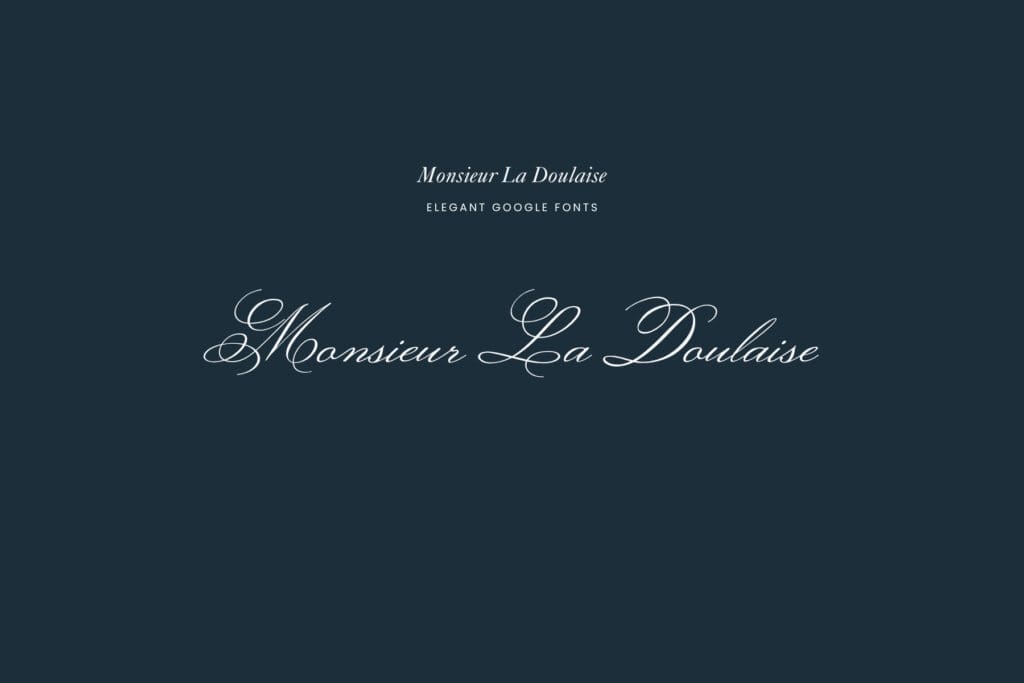
Monsieur La Doulaise: One of the most elegant Google Fonts for wedding and luxury brands, Monsieur La Doulaise is a delicate calligraphic script that mimics the look of fine pen lettering. It’s airy, refined, and perfect for logos, monograms, or anywhere you want a touch of old-world romance.
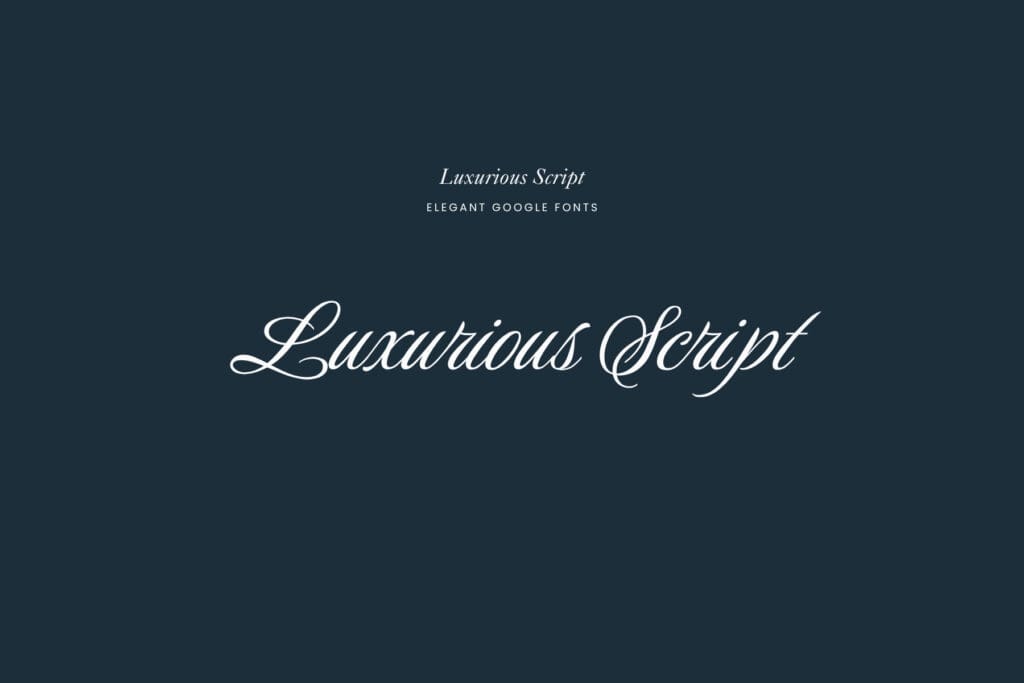
Luxurious Script: True to its name, Luxurious Script is an elegant Google Font with sweeping, connected letterforms that feel both formal and fluid. It’s a go-to for upscale brands, wedding invitations, and editorial headers where sophistication is the whole vibe.
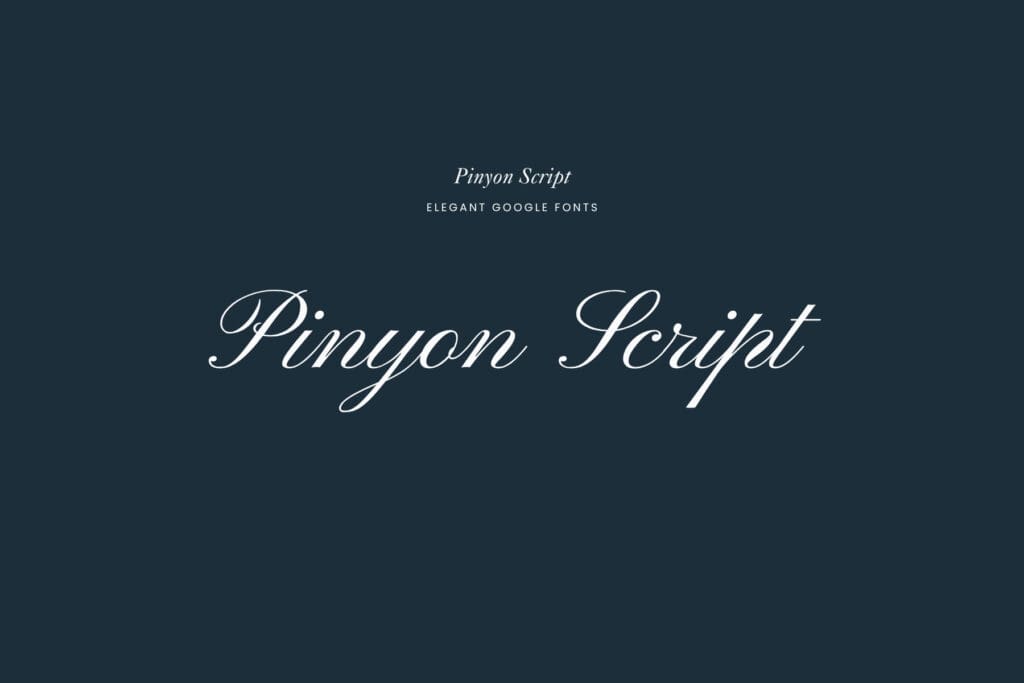
Pinyon Script: Pinyon Script brings a classic, calligraphy-inspired elegance that pairs beautifully with serif fonts. Among elegant Google Fonts for the wedding industry, this one consistently delivers. It has the kind of timeless handwritten quality that feels expensive without trying too hard.
Elegant Google Fonts | Serif Fonts
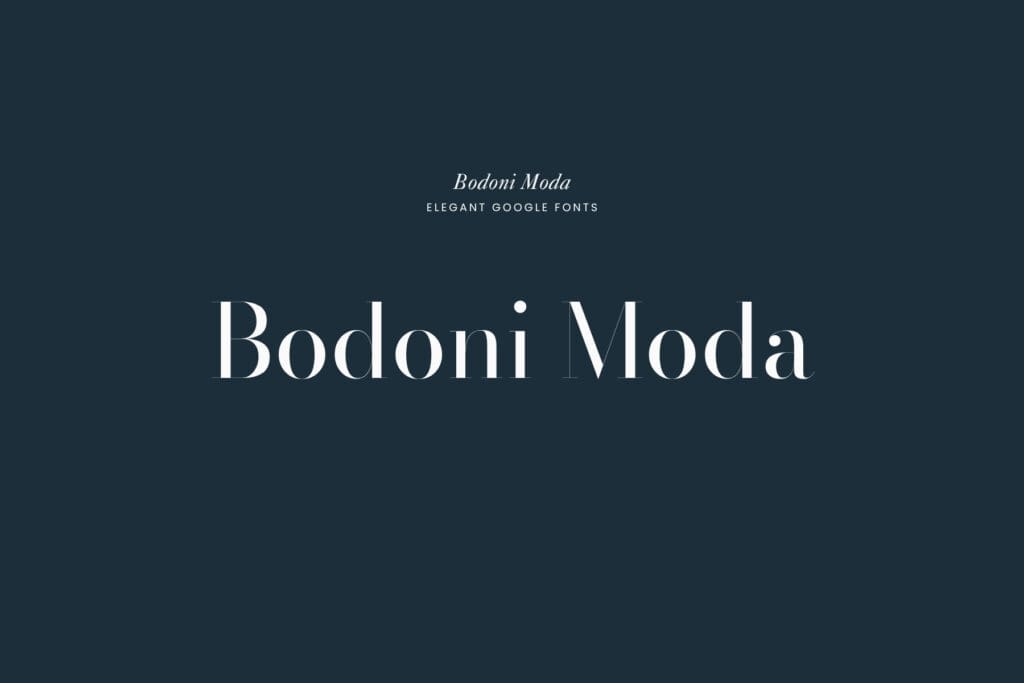
Bodoni Moda: A high-contrast serif with sharp hairlines and strong strokes, Bodoni Moda is one of the most editorial-feeling elegant Google Fonts available. It pulls inspiration from classic fashion typography and works beautifully as a headline font for luxury and creative brands.
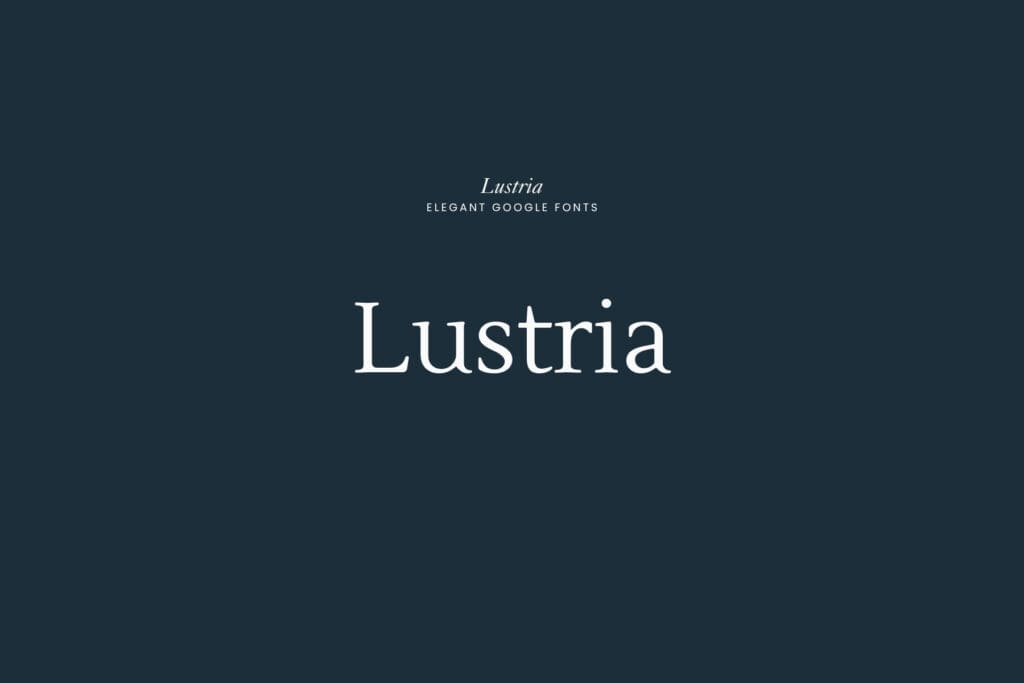
Lustria: A clean, refined serif that sits at the intersection of traditional and modern. It’s one of those elegant Google Fonts that quietly does a lot of heavy lifting — readable at body size, stunning at display size, and polished enough for any high-end brand.
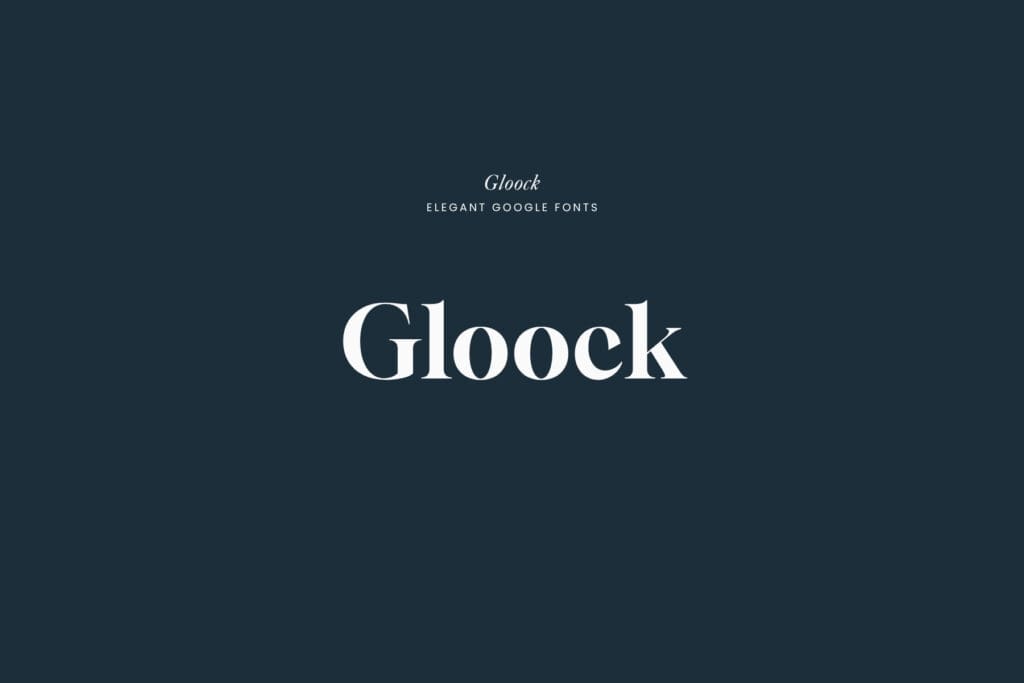
Gloock: A contemporary serif with a strong, confident presence. As an elegant Google Font with a slightly editorial edge, it works especially well for bold headlines and brand names where you want weight without losing refinement.
Elegant Google Fonts | Sans-Serif Fonts
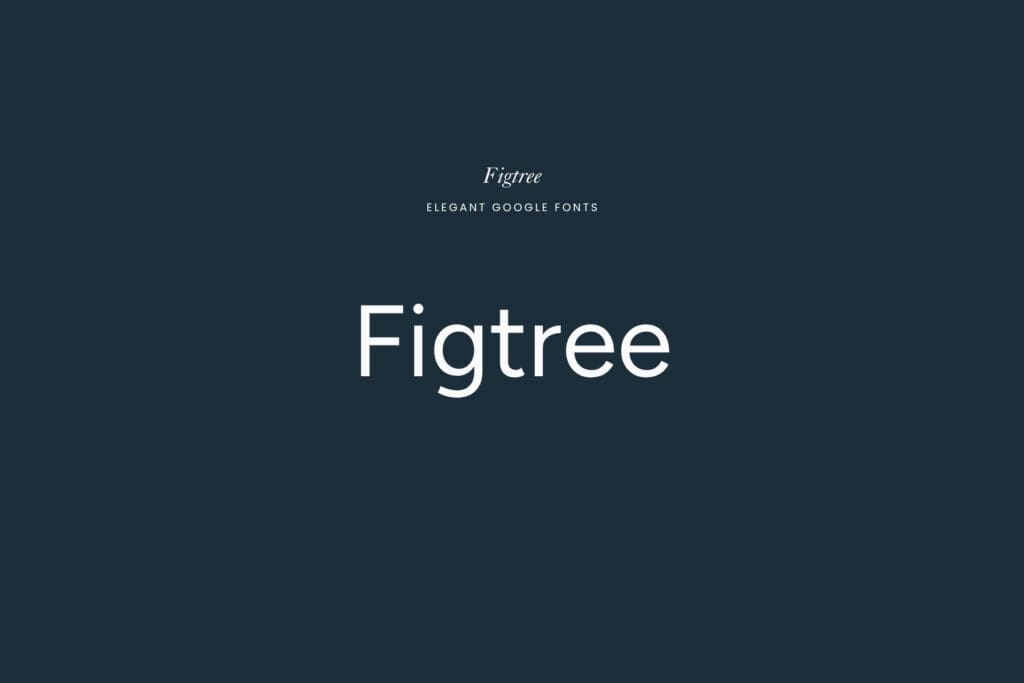
Figtree: Amodern, geometric sans-serif that brings a soft elegance to clean layouts. It may not read as traditionally formal, but among elegant Google Fonts for minimalist or contemporary brands, it’s a standout. Friendly, polished, and incredibly versatile.
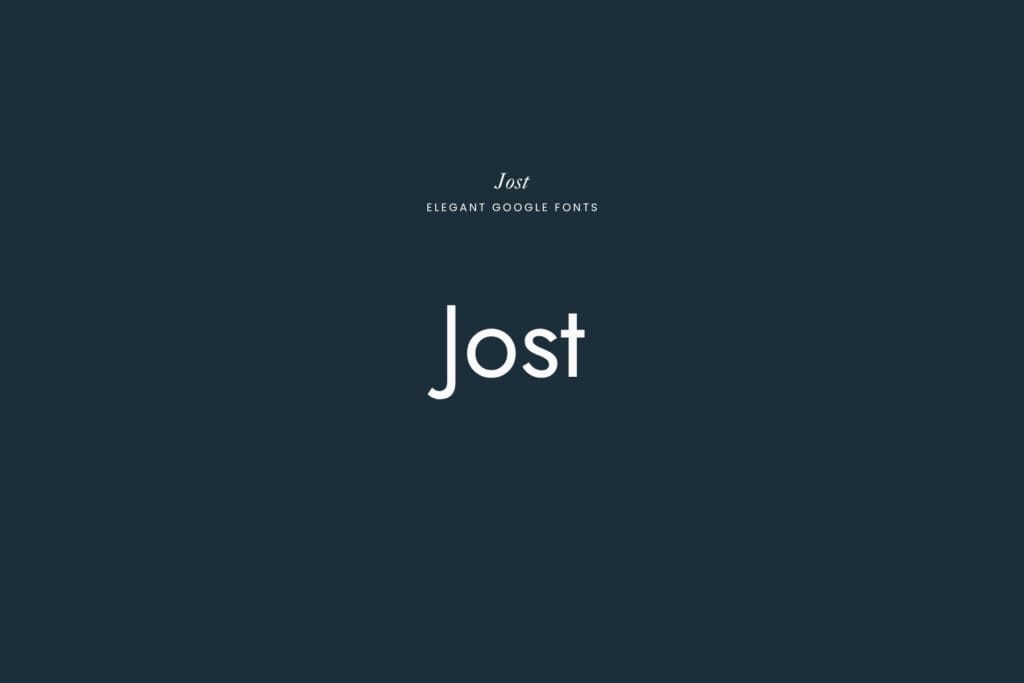
Jost: A geometric sans-serif inspired by 1920s German typography, giving it a subtle sophistication that sets it apart. It’s one of those elegant Google Fonts that feels both timeless and current, making it ideal for body copy, navigation, or any brand that wants modern clarity with a refined edge.
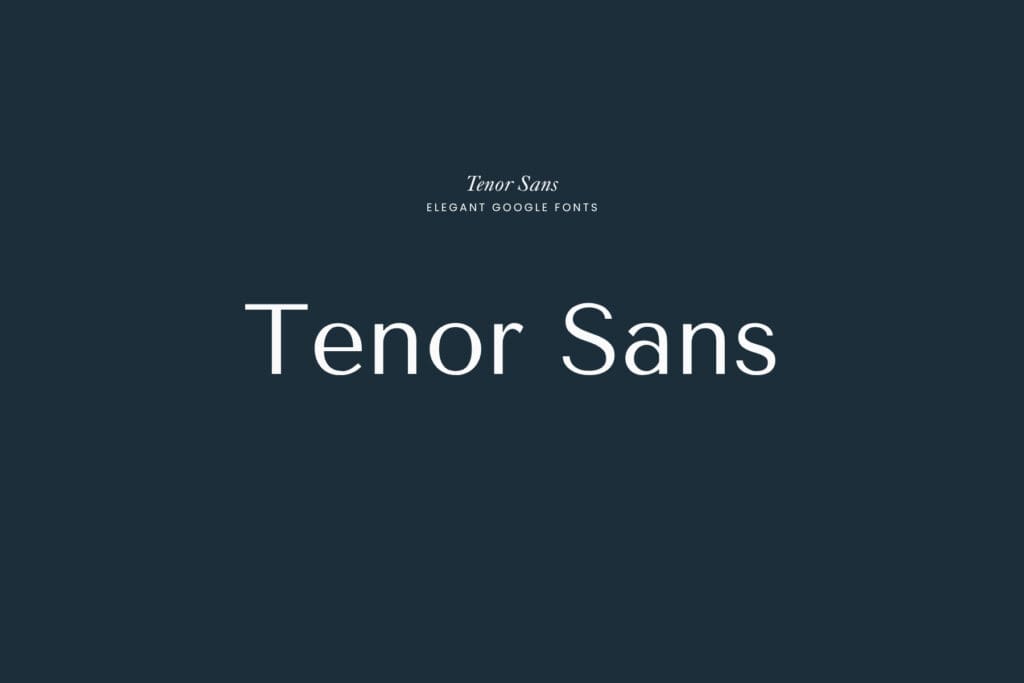
Tenor Sans: A humanist sans-serif with just enough warmth to feel approachable while still reading as polished and elevated. Among elegant Google Fonts for creative entrepreneurs and wedding professionals, Tenor Sans is a reliable pairing partner and a beautiful standalone choice for headers and subheadings.
Nine new-to-you elegant Google Fonts to help bring your creative projects to life.